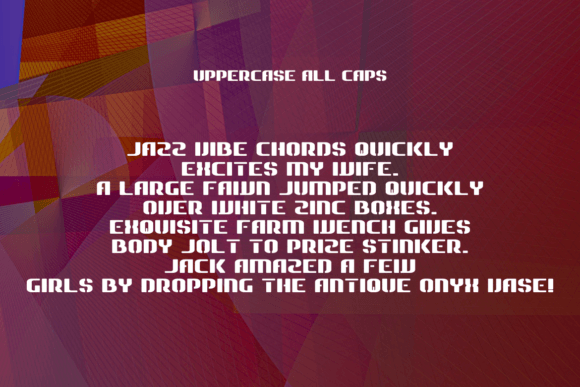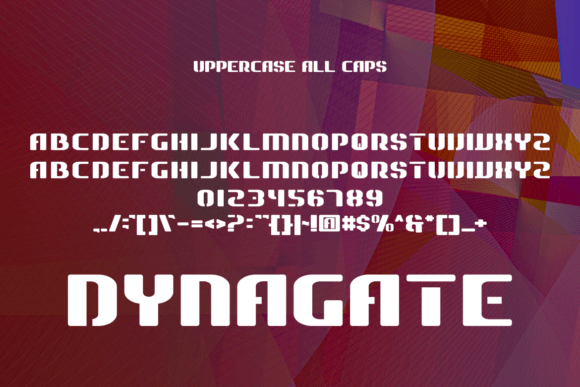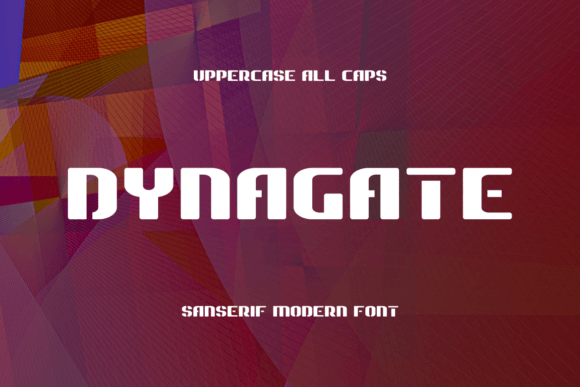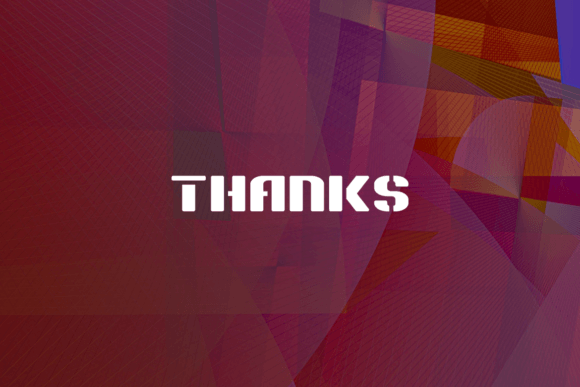
Dynagate Font: Elevate Your Designs with Modern Sophistication
In the world of typography, fonts play a crucial role in conveying the message and aesthetic of a design. For designers and crafters seeking a modern and sophisticated look, Dynagate Font is an exceptional choice. This stunning sans serif typeface has been gaining popularity for its clean and minimal design, making it perfect for a wide range of projects.
The Essence of Dynagate Font
Dynagate Font is a beautifully crafted typeface that exudes modernity and sophistication. Its clean and minimal design ensures that it remains versatile and adaptable, making it an ideal choice for designers who seek a professional and polished look. The font’s beautiful curves and straight lines add a touch of elegance to any project, while its readability ensures that it’s perfect for both headlines and body text.
Key Features of Dynagate Font
- Clean and Minimal Design: Dynagate Font boasts a sleek and contemporary design that makes it perfect for modern designs.
- Beautiful Curves and Straight Lines: The font’s elegant curves and straight lines add a touch of sophistication to any project.
- High Readability: Dynagate Font is designed to be highly readable, making it suitable for both headlines and body text.
- Versatility: The font’s versatility makes it perfect for a wide range of projects, from branding and advertising to packaging and digital designs.
Why Choose Dynagate Font?
With so many fonts available, why choose Dynagate Font? Here are a few compelling reasons:
- Uniqueness: Dynagate Font offers a unique and distinctive look that sets it apart from other sans serif typefaces.
- Professionalism: The font’s clean and minimal design makes it perfect for professional designs that require a polished look.
- Flexibility: Dynagate Font is highly versatile and can be used for a wide range of projects, from print to digital designs.
Using Dynagate Font in Your Designs
Using Dynagate Font in your designs is easy and straightforward. Here are a few tips to get you started:
- Pair it with Other Fonts: Dynagate Font pairs well with other fonts, making it easy to create stunning typography combinations.
- Experiment with Different Sizes: The font’s readability ensures that it remains legible at different sizes, making it perfect for headlines and body text.
- Use it for Branding and Advertising: Dynagate Font is perfect for branding and advertising projects that require a modern and sophisticated look.
In conclusion, Dynagate Font is an exceptional choice for designers and crafters seeking a modern and sophisticated look. Its clean and minimal design, beautiful curves and straight lines, and high readability make it perfect for a wide range of projects. Whether you’re working on a branding project, advertising campaign, or digital design, Dynagate Font is sure to elevate your designs and leave a lasting impression.